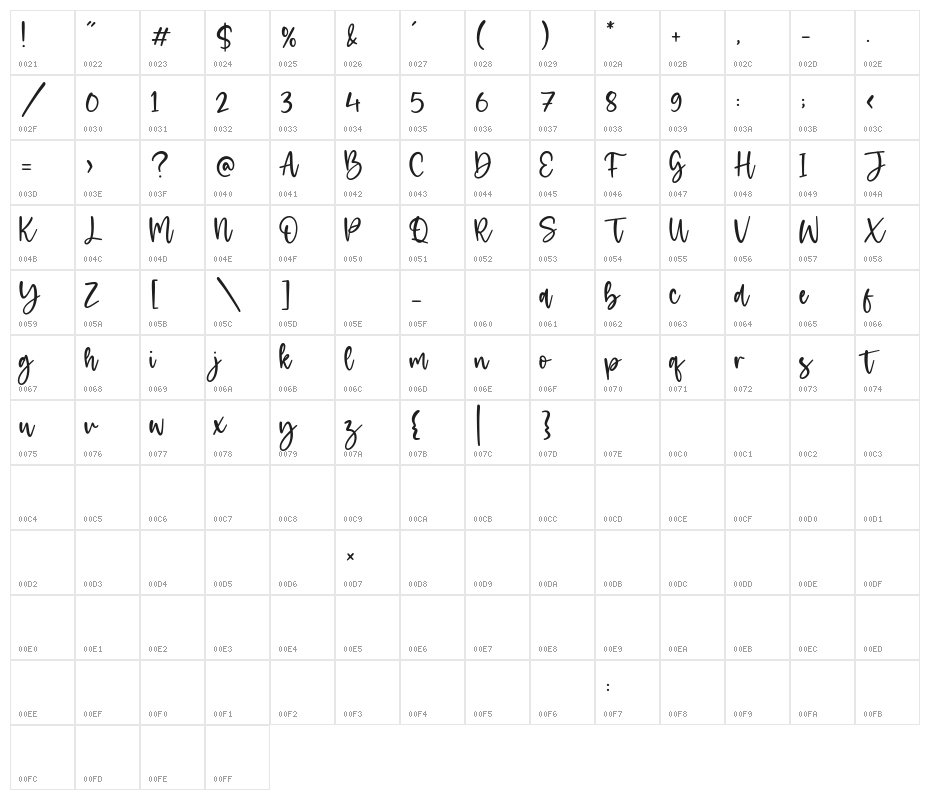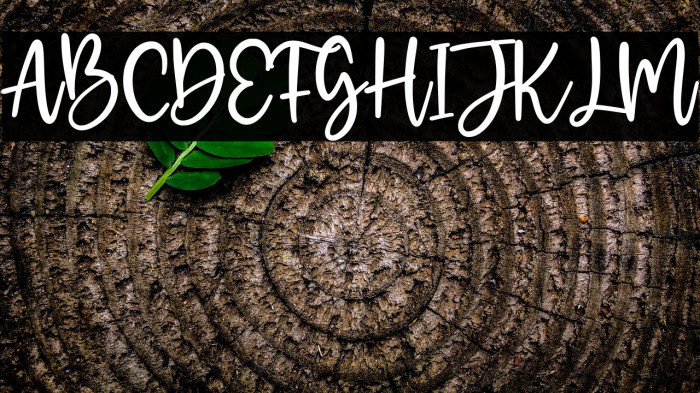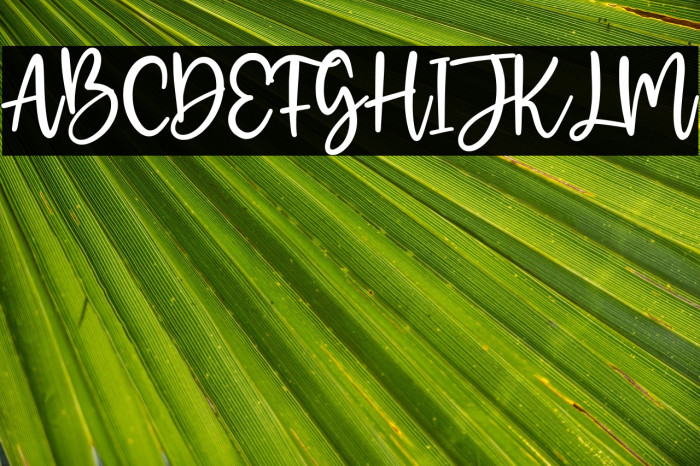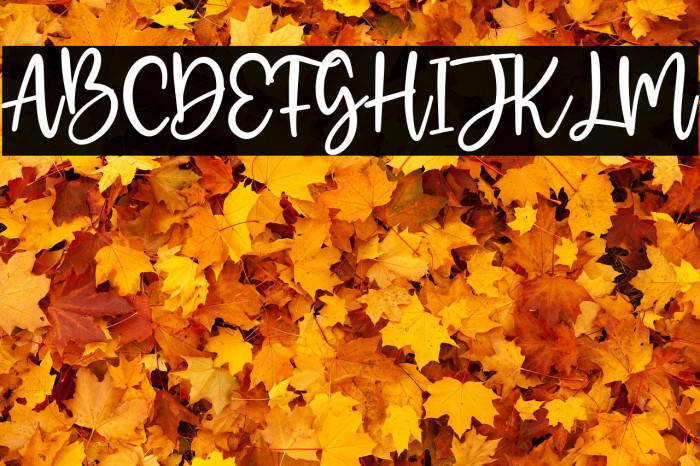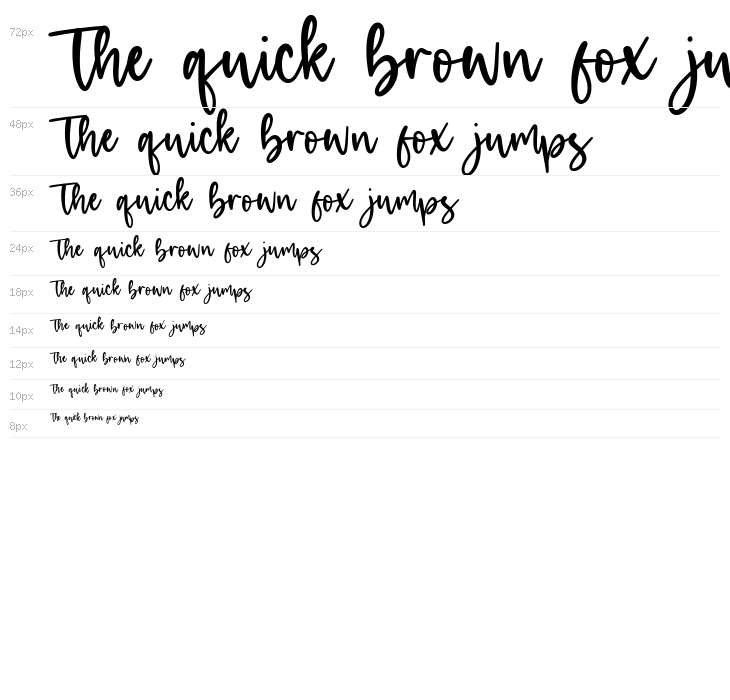
Granite Font
Granite Description
This font features a lively and flowing script style that mimics the natural handwriting of a skilled calligrapher. The letters are connected with smooth, sweeping strokes, giving it a dynamic and elegant appearance. The uppercase letters are bold and slightly larger, while the lowercase letters maintain a consistent flow with subtle variations in stroke width. The numerals are clear and legible, matching the playful yet sophisticated style of the alphabet. Special characters are integrated seamlessly, maintaining the overall aesthetic. This font is perfect for adding a personal touch to any project.